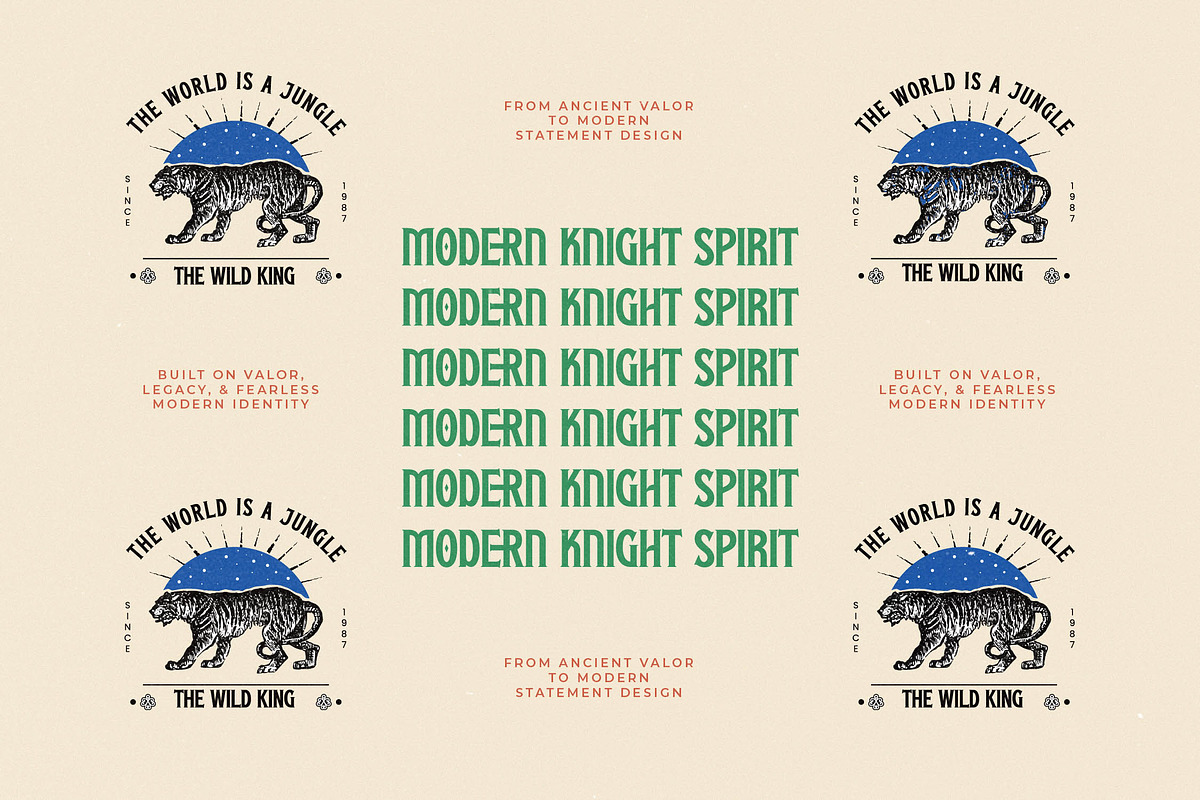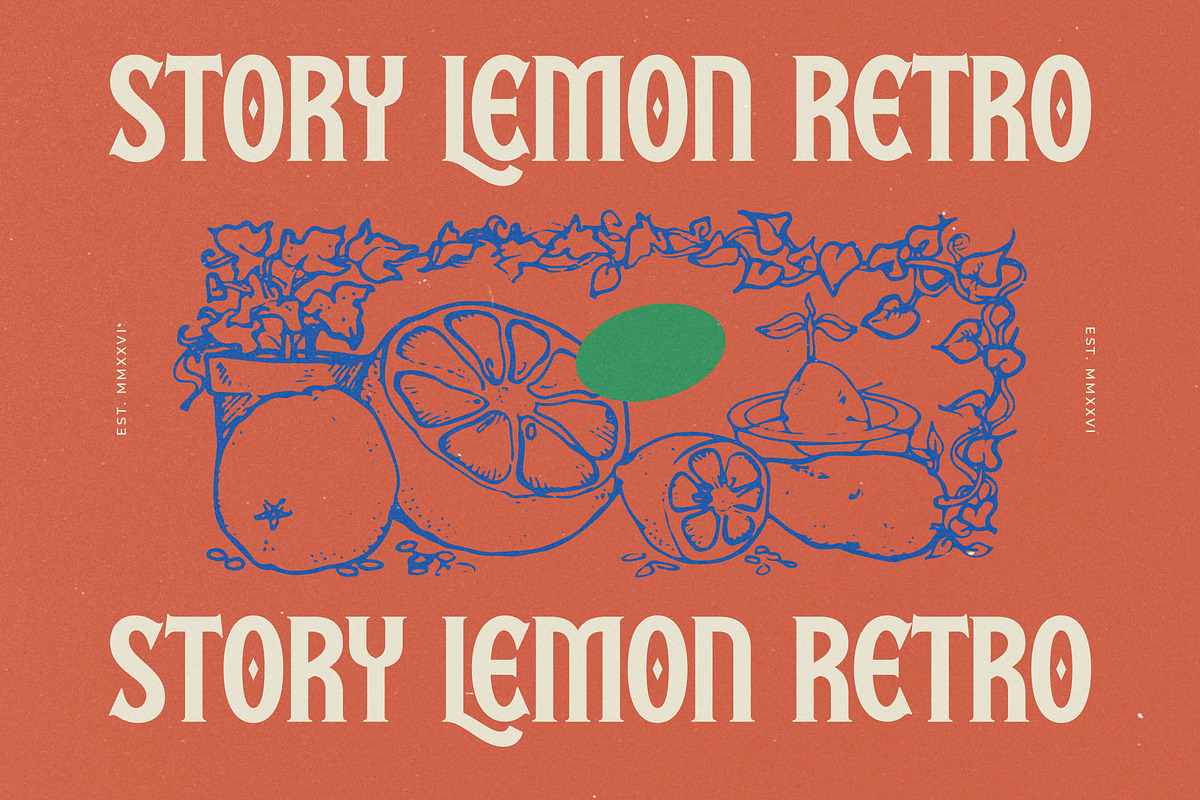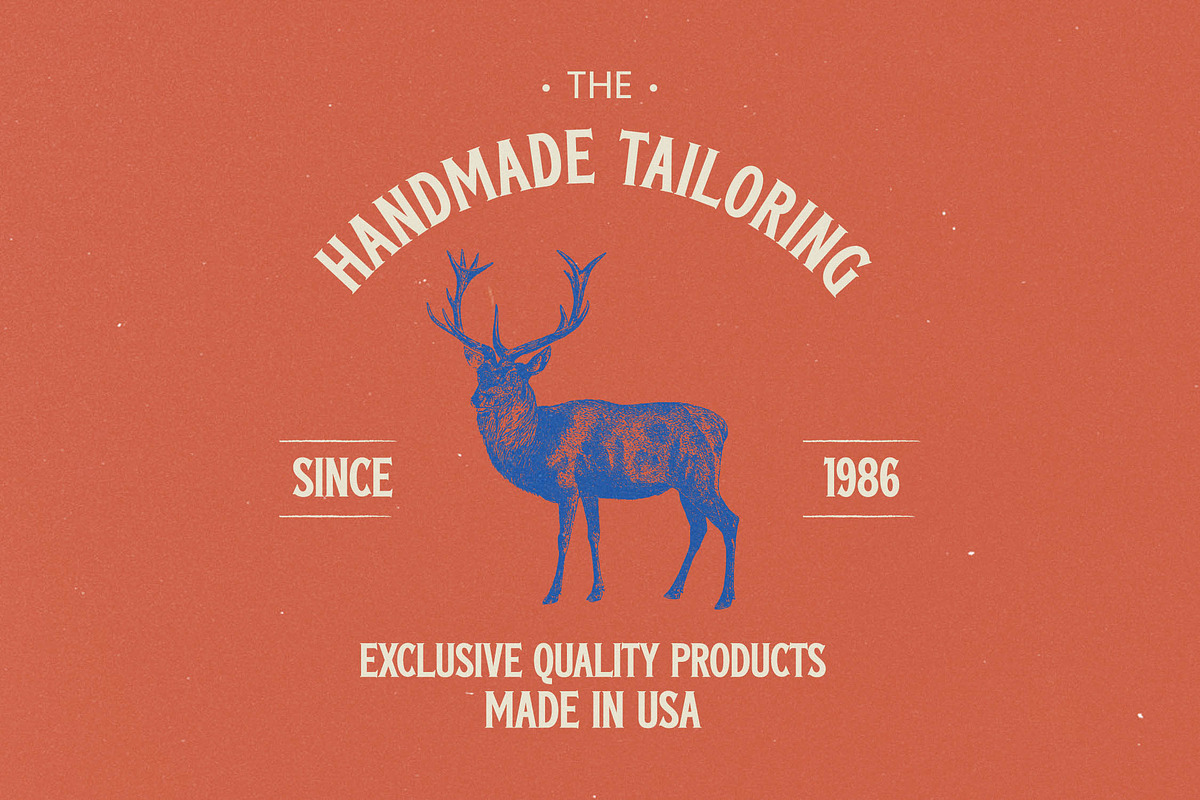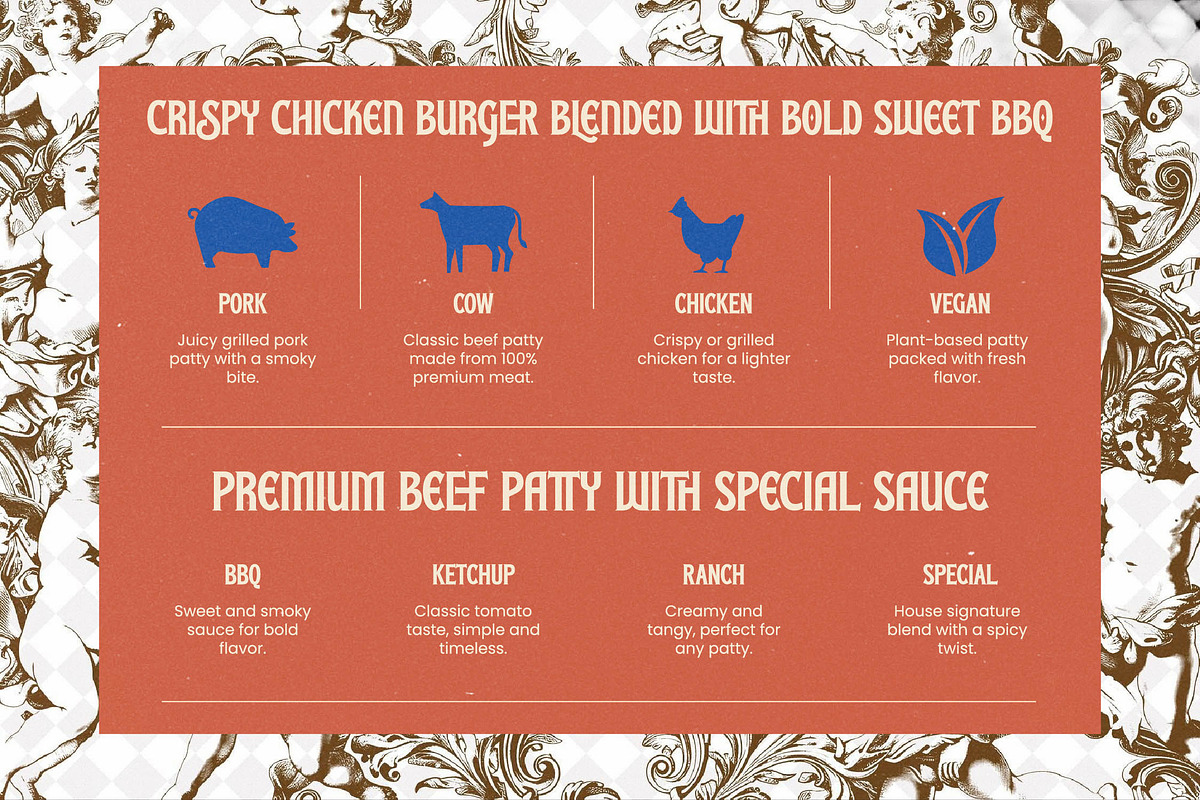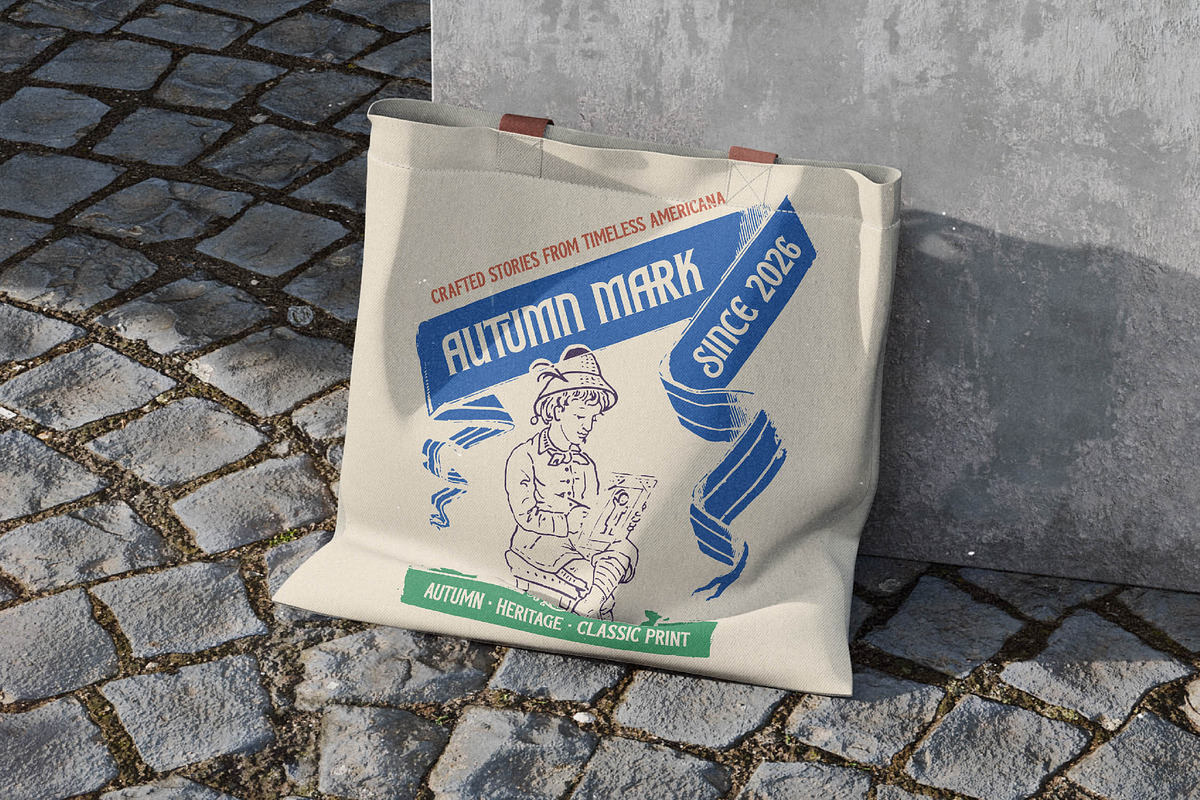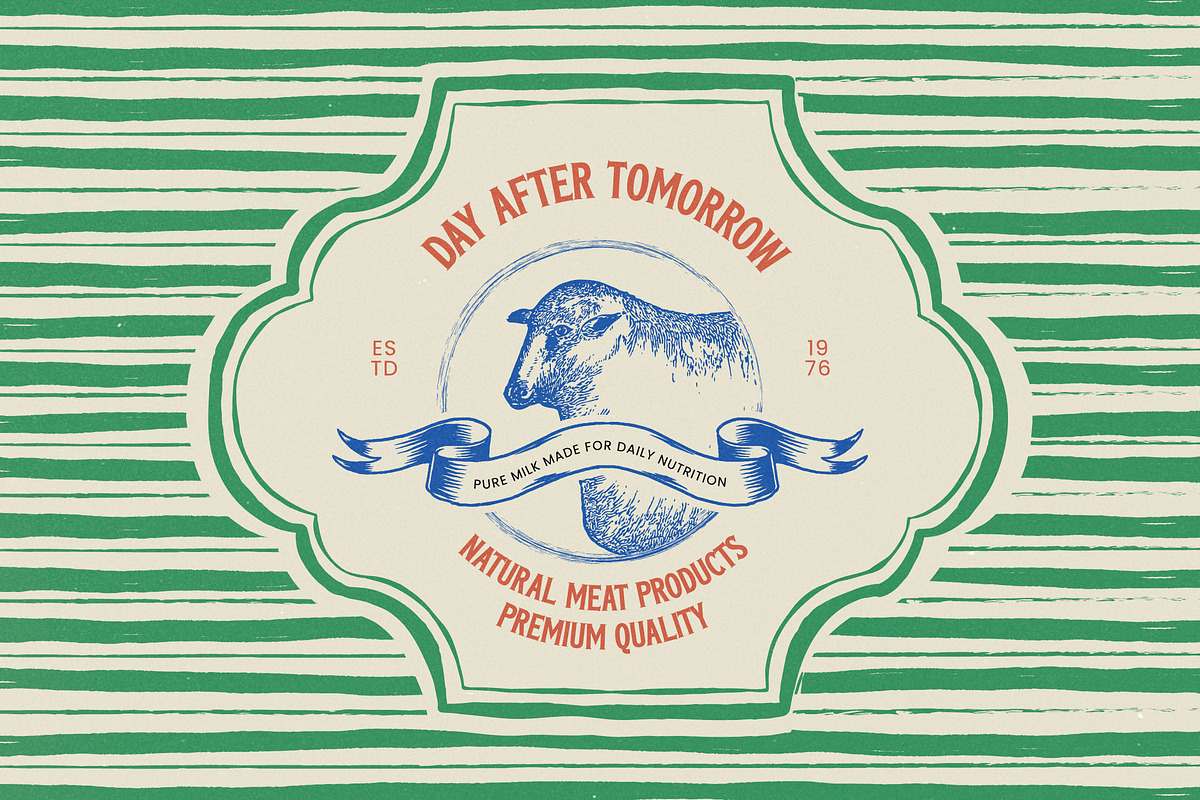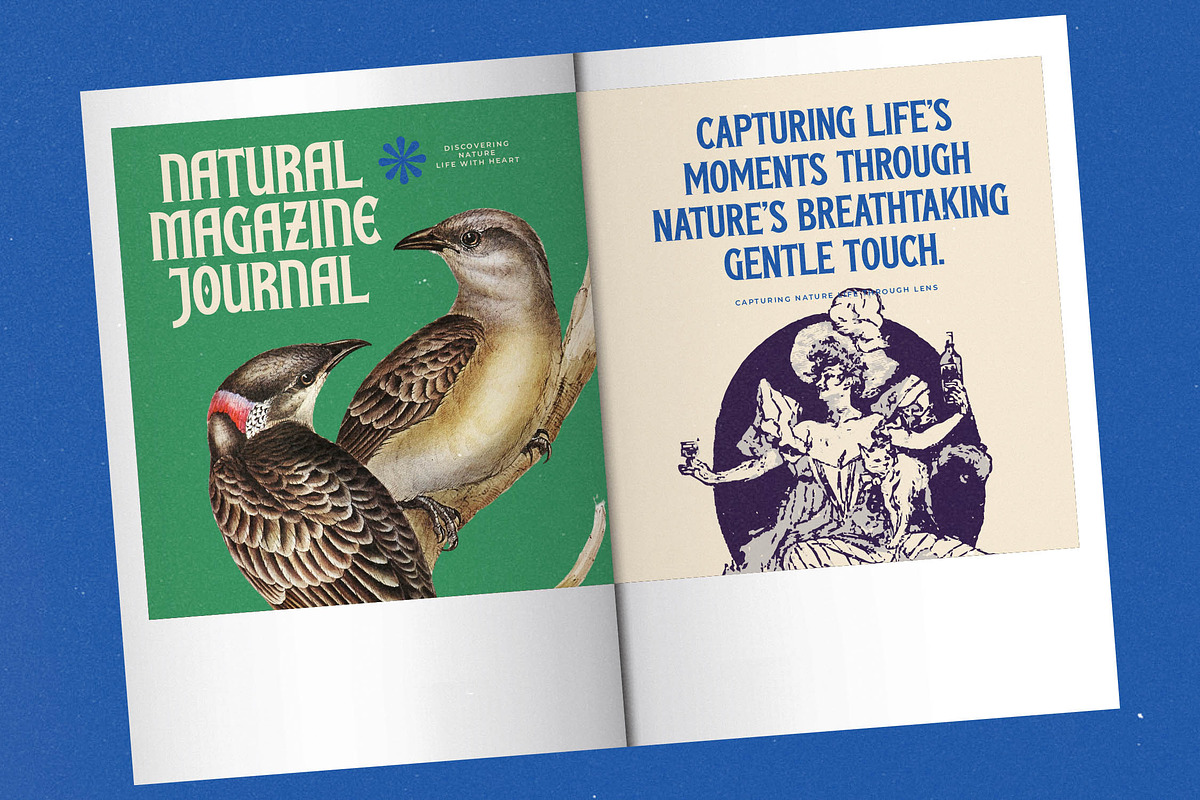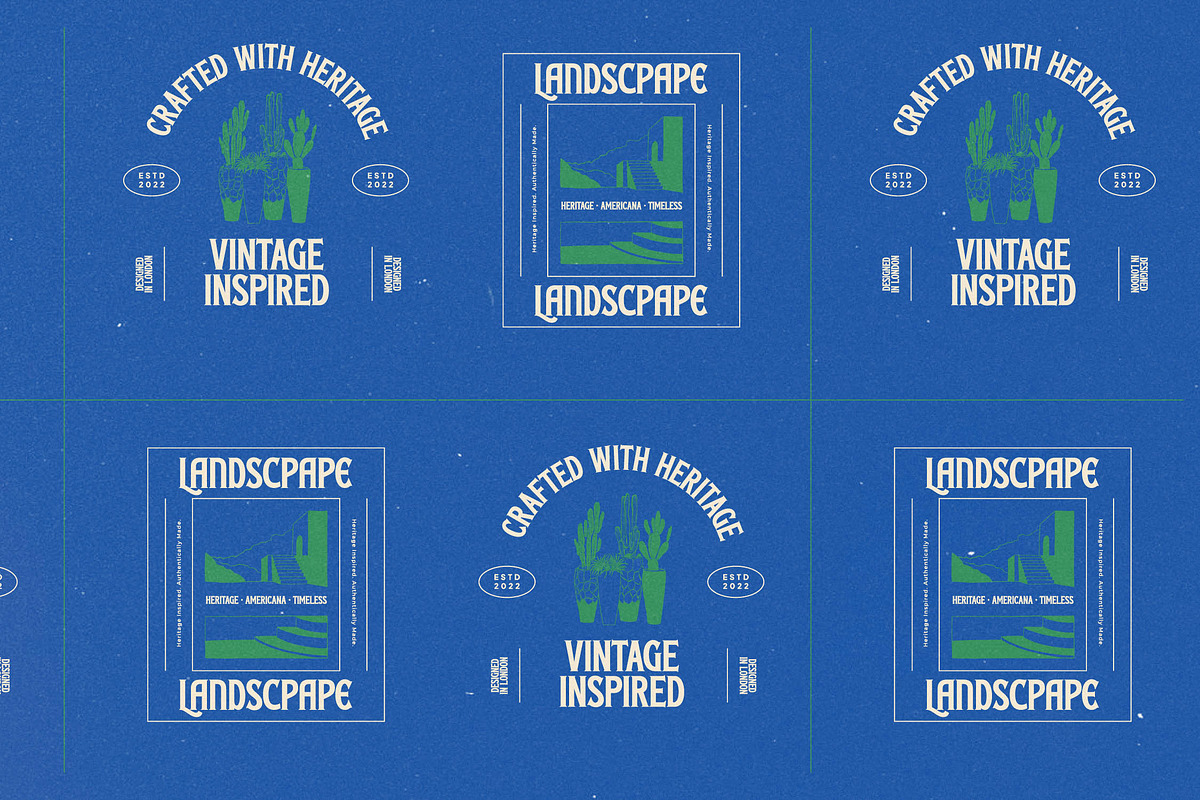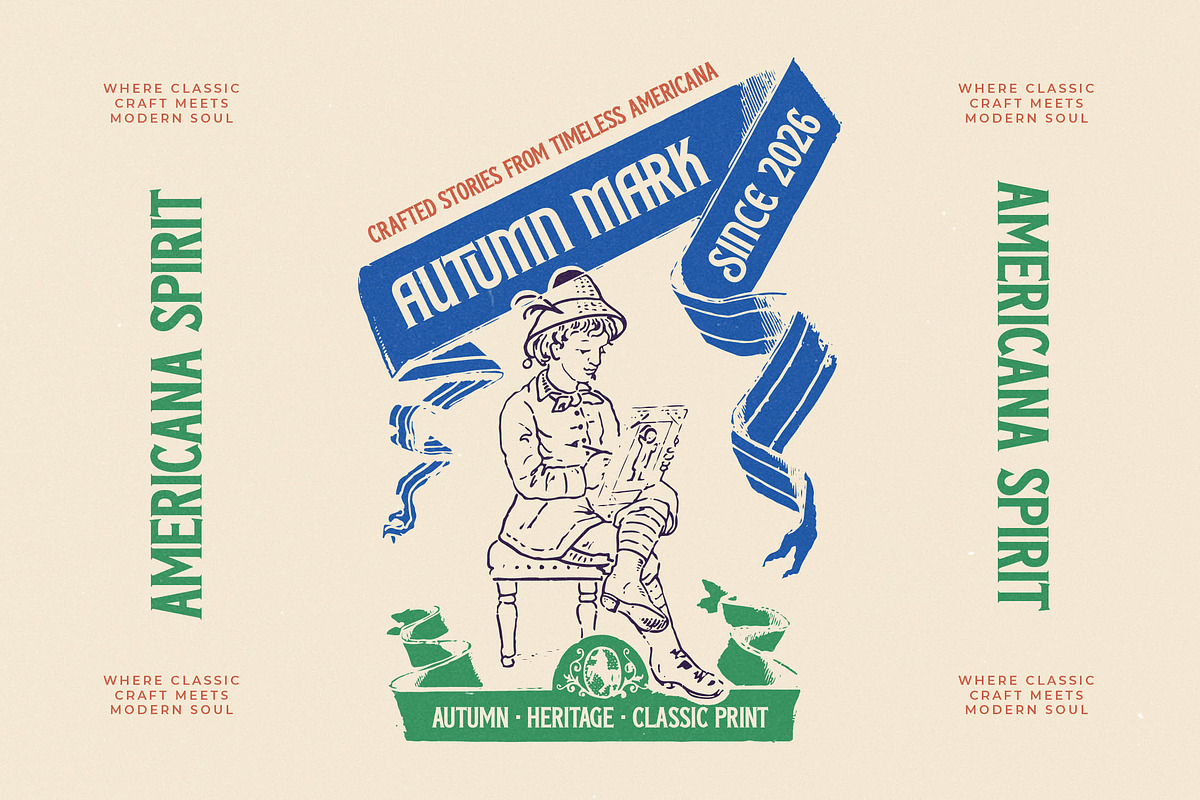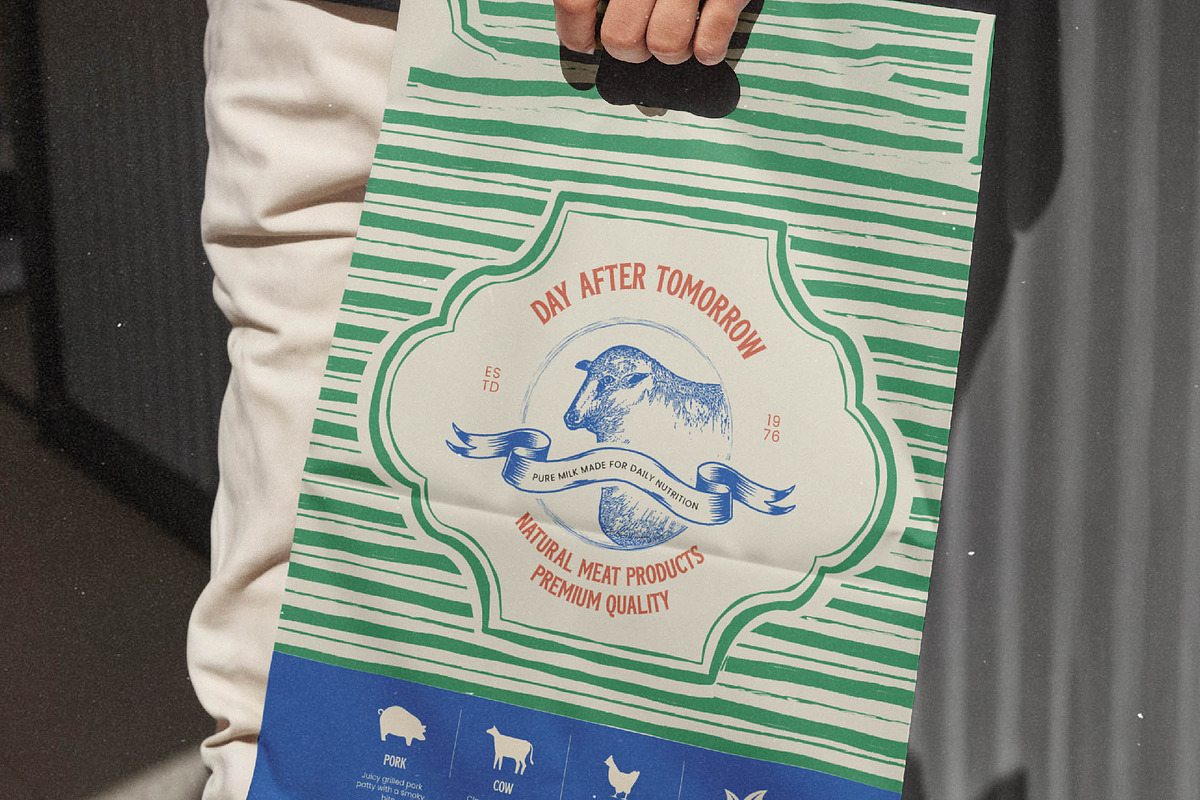
Badge Americana Vintage Serif
Introducing Badge Americana, a masterfully crafted typeface that breathes life into the golden era of American design with a sophisticated, contemporary twist. This font is a love letter to heritage craftsmanship, offering a unique blend of nostalgia and modern precision for the discerning designer.
Inspired by the hand-painted signage and intricate badge work of early 20th-century America, this font captures the essence of a bygone era. It draws from the soulful artistry found in vintage apothecary labels, classic posters, and historical brand marks to create a truly timeless aesthetic.
This modern serif display is engineered for maximum branding impact, featuring a high-contrast serif structure that commands attention in any layout. It functions as a premium luxury typography solution for projects that require a refined, editorial font feel with a sturdy, grounded presence.
Perfectly aligned with the current modern serif trend, this typeface answers the growing demand for character-driven typography that feels authentic rather than sterile. It sits at the intersection of heritage and innovation, providing the depth needed for editorial display fonts in today's digital and print landscape.
Whether you are developing a unique logo design or building a cohesive brand identity, this font excels in packaging, editorial spreads, and high-end fashion marketing. Its versatile nature also makes it an enchanting choice for wedding invitations and boutique restaurant menus that prioritize a sense of history.
The package is loaded with over 23 unique ligatures and 69 stylistic alternates to give your designs a custom, hand-lettered look. Full multilingual support and a wide range of international characters ensure your message resonates across borders, while the included swashes add that final touch of vintage flair.